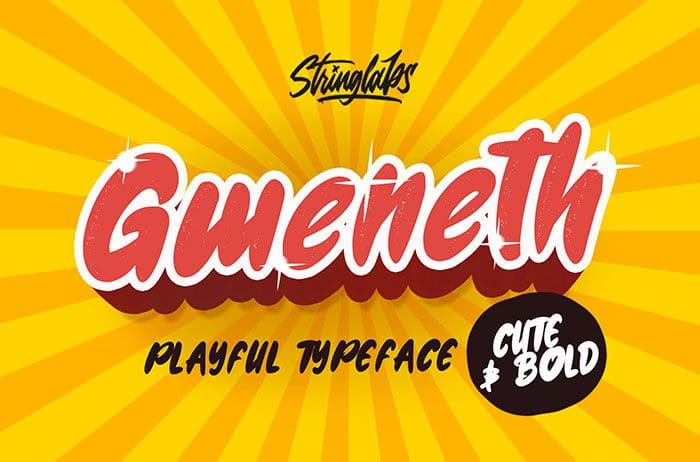
Gweneth playful display font is perfect for those of you who want the style of children. Fonts Made specifically for purposes such as: Kindergarten, Birthday, Kid, Cartoon, Comic, Children, and Playground. This font is available only for personal use. Created this font by StringLabs. You can also search more free Display Fonts. Thanks.